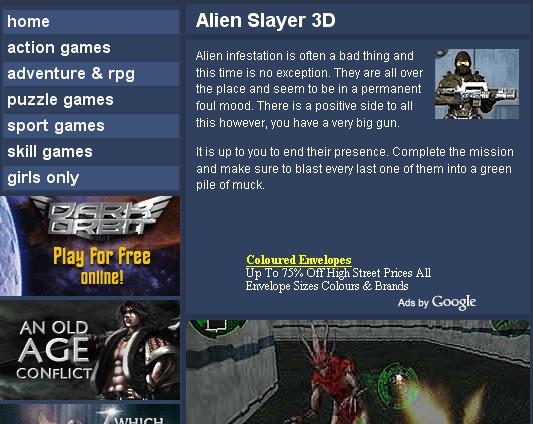
New Adsense Font??
check out the font
Your Google ads on your site do not look like your screen shot on my computer. They look "normal". The ad at the top of this page is fine too.
Some people have reported spotting Comic Sans font on their AdSense ads as well. Odd. Never seen it here!
Google is doing a lot of trial and errors since yesrteday and that is one of the result..
Yes, I also reported Comic Sans and Georgia fonts in use in this thread
I don't like this new font, I think the old one is better.
The new fonts users are seeing just look AWFUL!
I am praying this is something that us publishers can control, else my sites will look like crap with these Comic Sans fonts!
if we, will be able to change the fonts then will be great, but this one you show us is ugly
I noticed this today:
Looks like Times New Roman?
i think, these are customize adsense with adsense api, that google allow only sites those have 100,000 page view per day.
No this is not true, as my sites have them on and i definitely do not have the option to customise the settings for fonts.
i thing google is trying new fonts, but comic font is not giving a professional look. Yesterday, i saw comic font ads at tech web (not mine)
I hope they will add to users the choice of fonts